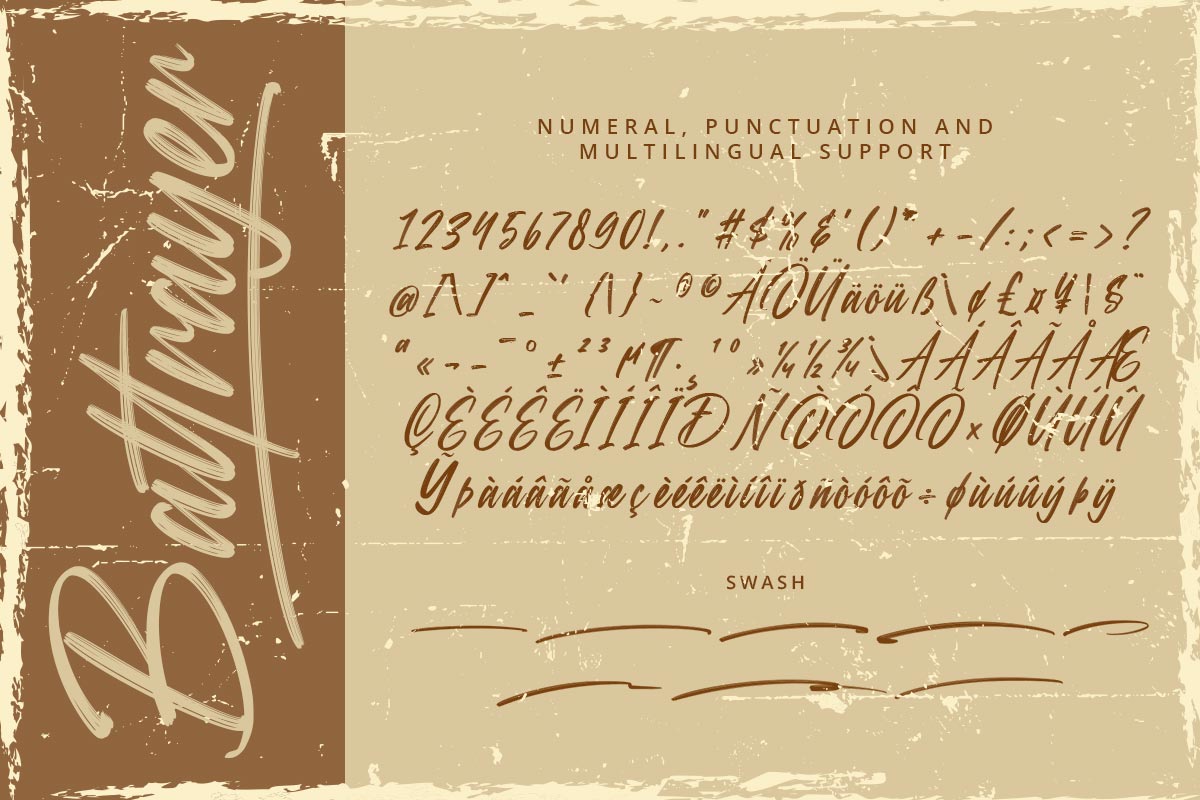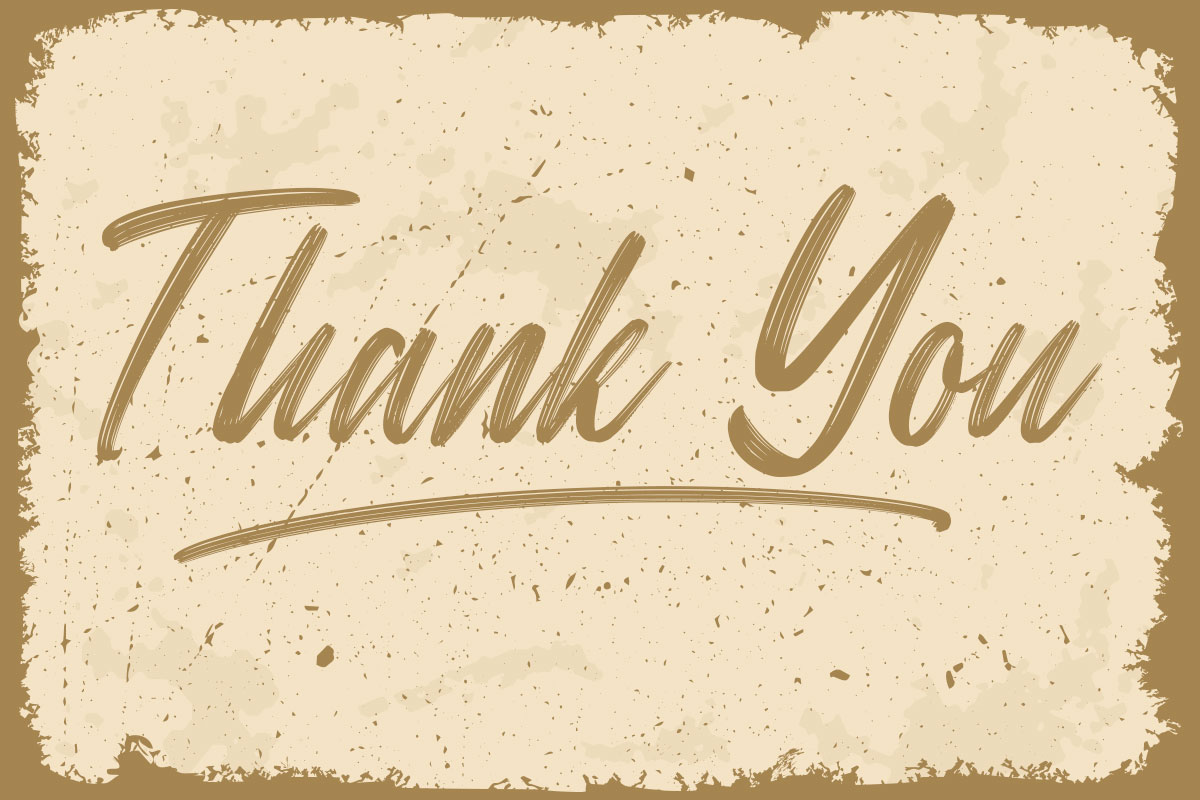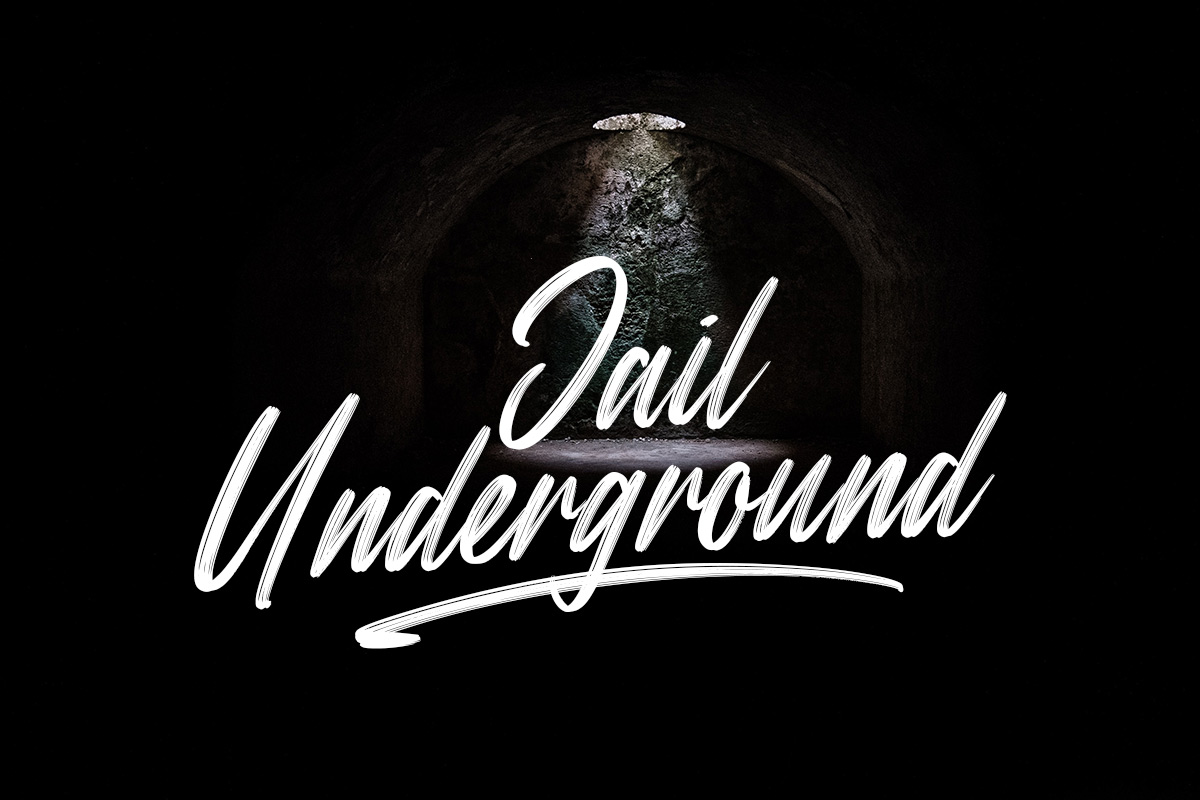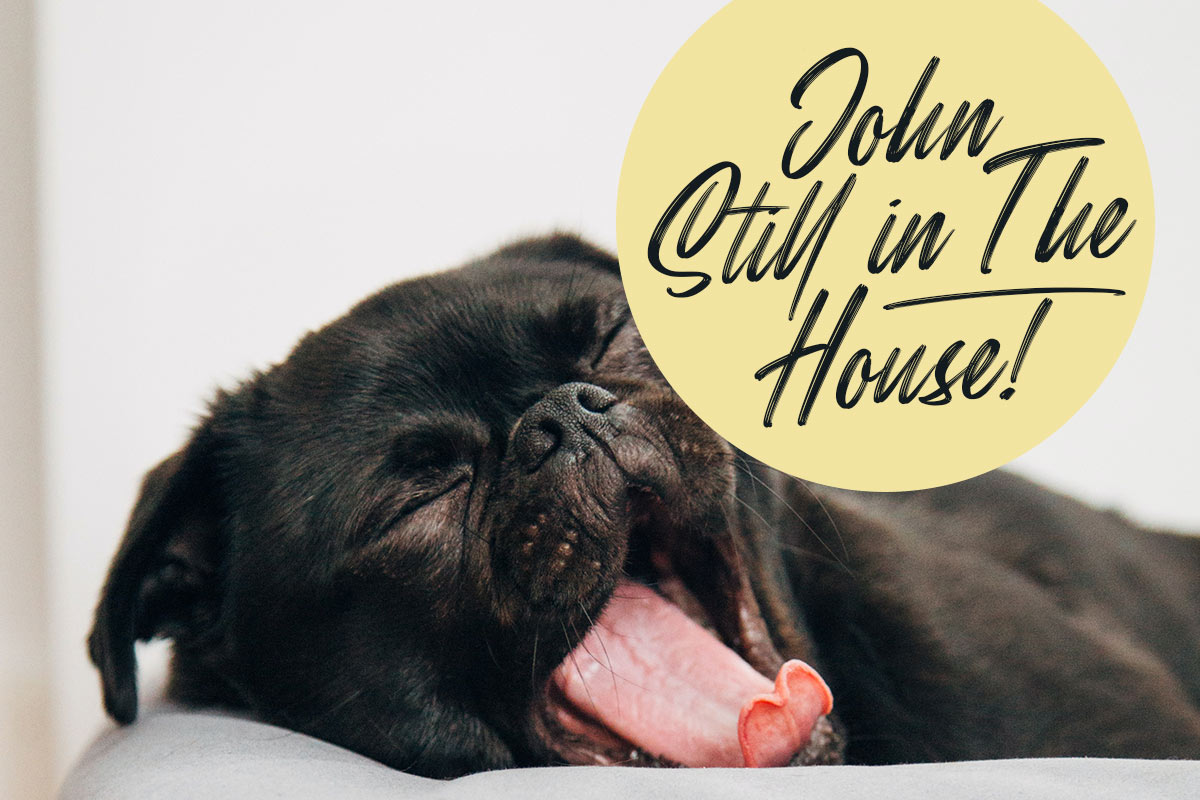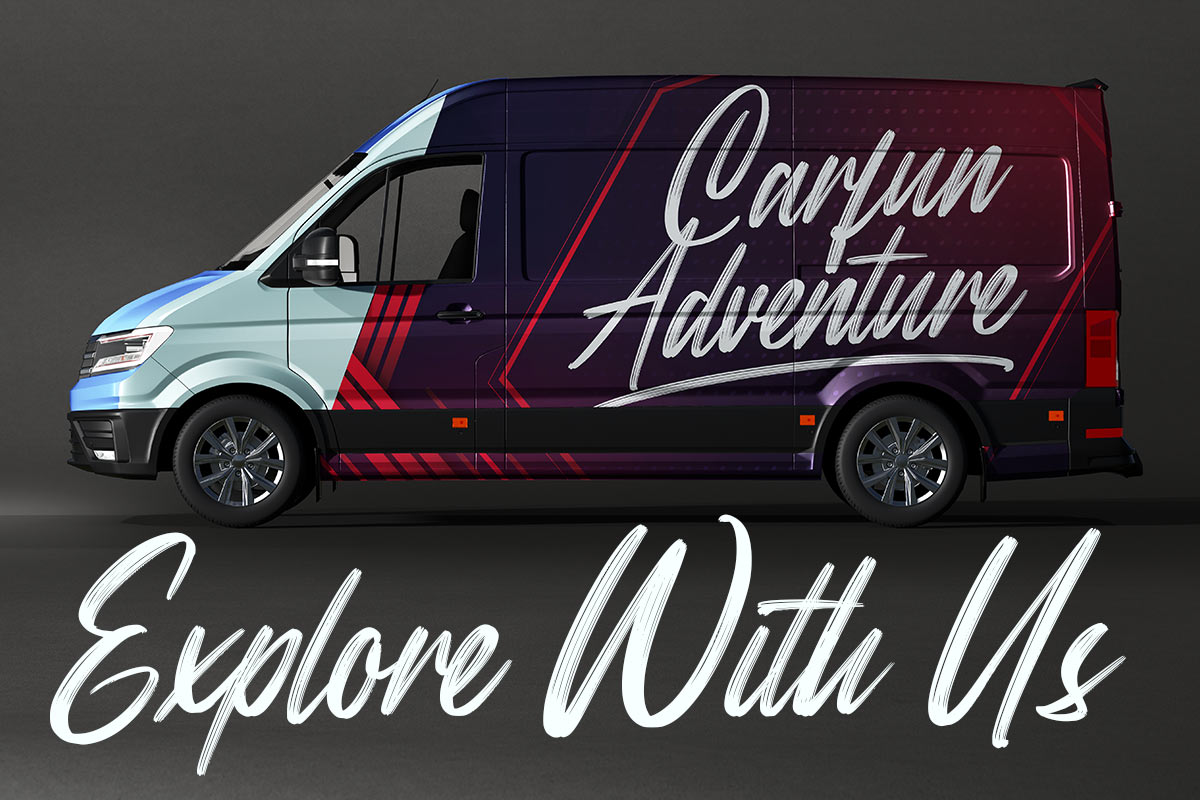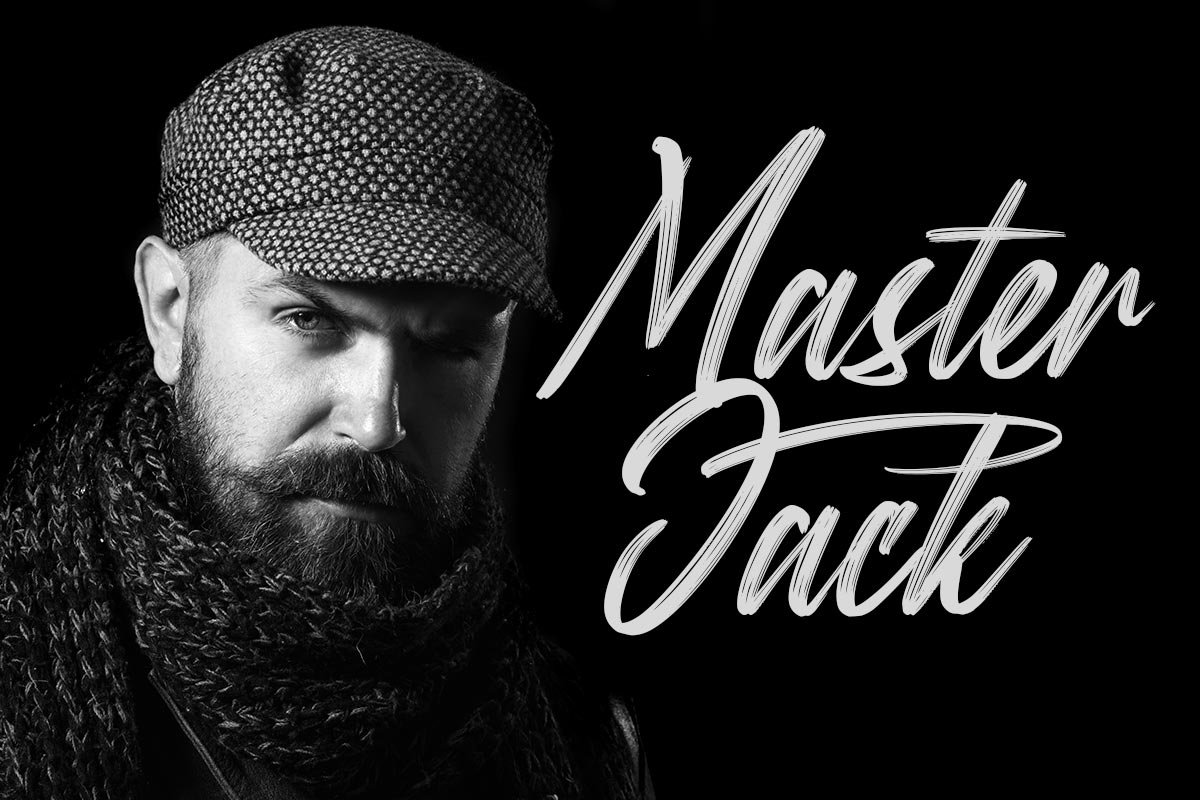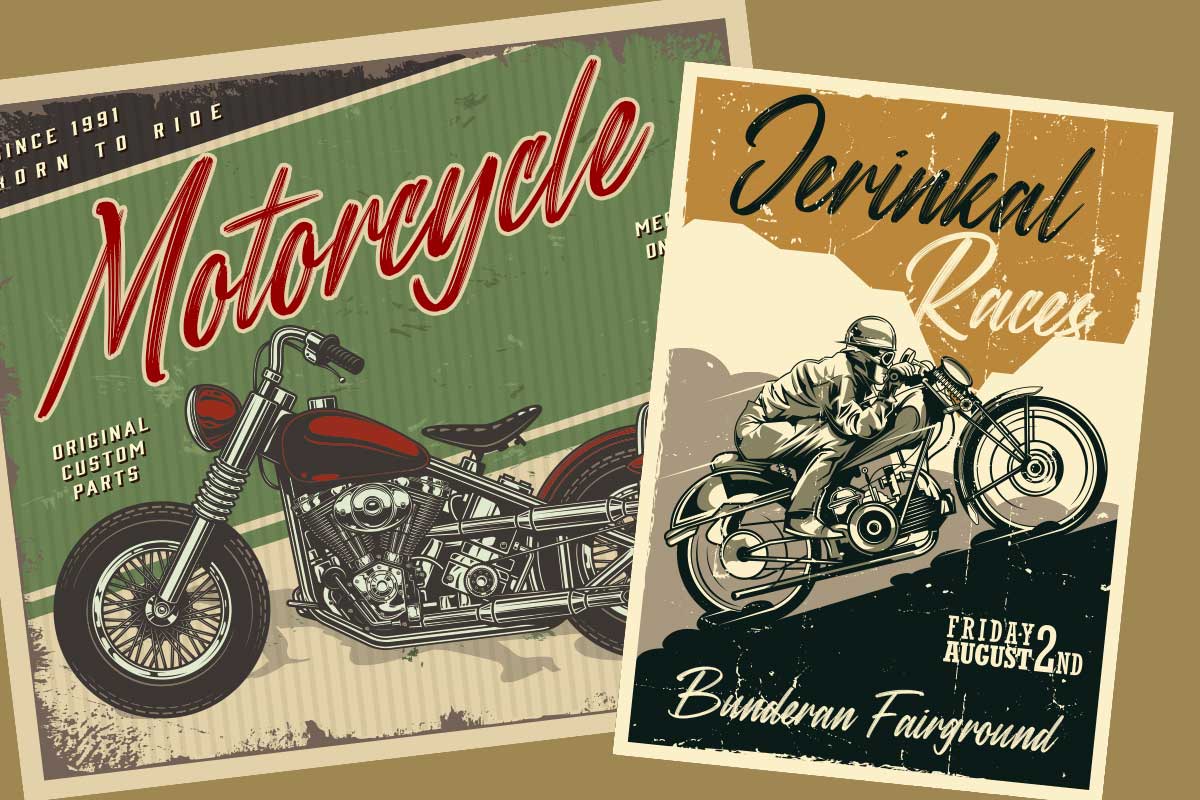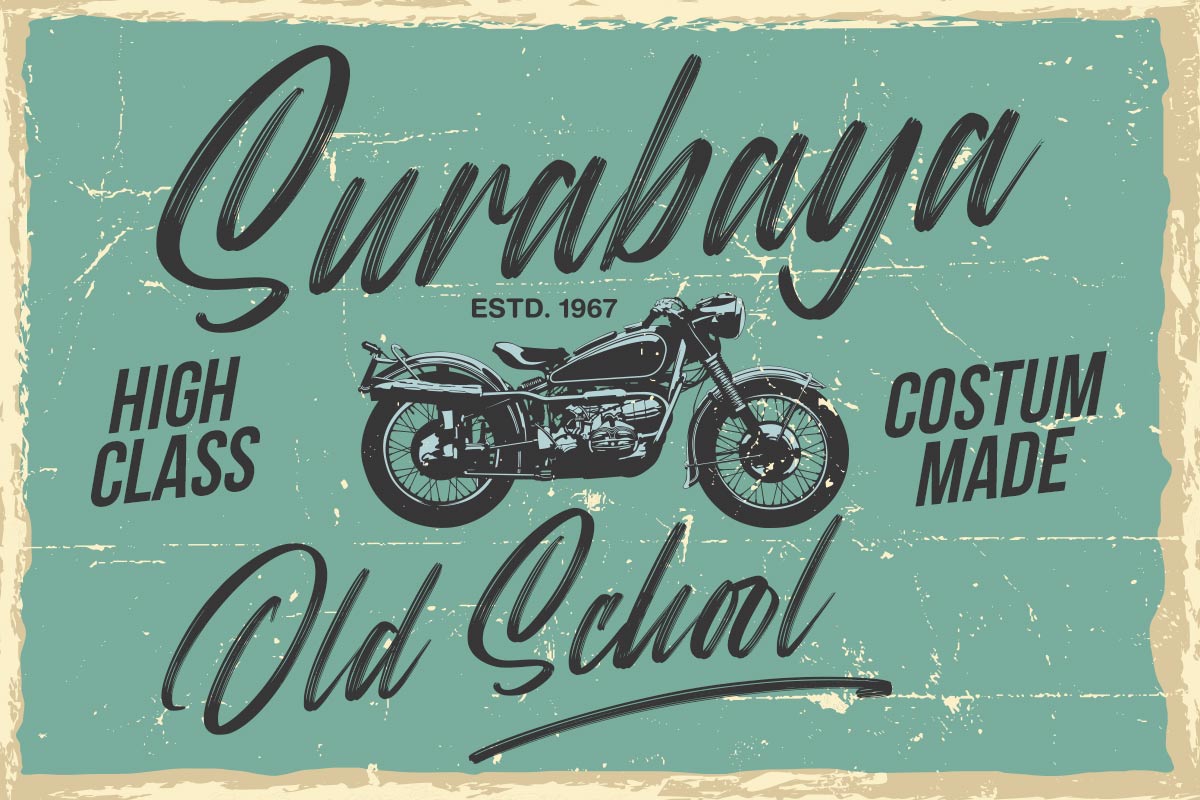
Battrayer Rough Font So many font choices are provided by the font brush, one of which is the Battrayer Rough Brush Font. This font is a good choice if you are looking for digital fonts or print fonts. You can see how the characteristics of this font are attractive to the eyes of anyone who reads it. Battrayer Rough Brush Font is one of those aesthetic fonts formed from light brush strokes. This font is created with beautiful curves in some of the letters. On closer inspection, this font looks like a shadow that has a bold edge at the end of the font shape. The characteristics of the Battrayer Rough Brush Font above are very suitable for formal events that emphasize beauty. This font is the best font that can be used for wedding fonts such as invitations, souvenirs, and writing on decorations. Battrayer Rough Brush Font is also one of the most suitable fonts to be used for product brands that answer women's needs, such as fashion and beauty products, as well as shop signs. These fonts can be digital fonts or print fonts. The Battrayer Rough Brush Font is illegible. Battrayer Rough Brush Font was created with simplicity, elegance, and a strong aesthetic in everything that goes with it. This impression arises from how clear this font looks and its characteristics. Our font brush collection is compatible to use as Figma fonts, Canva fonts, Freepik Fonts, and Adobe Fonts. They also work as Windows Fonts and Apple Fonts. For your social media needs, you can use and install fonts in our brush typography collection to use as Instagram Fonts, Facebook Fonts, and Twitter Fonts.